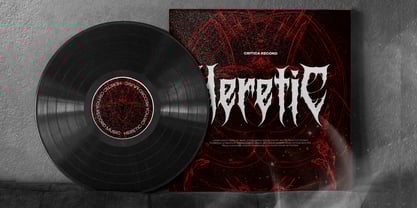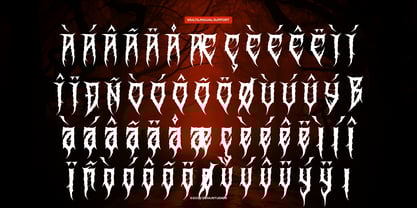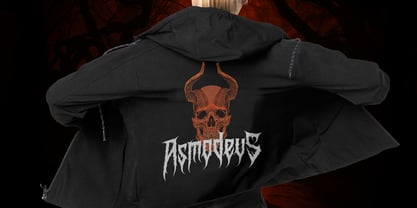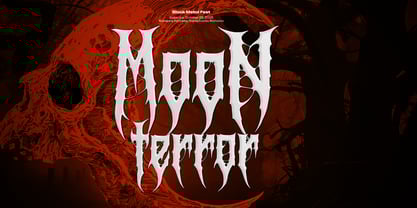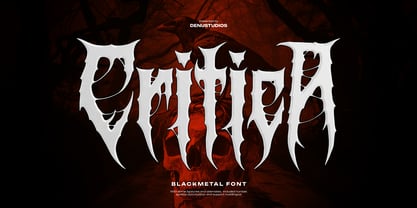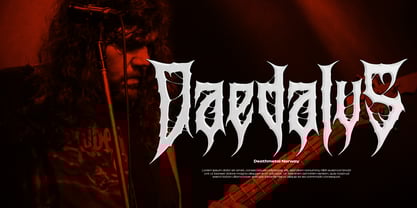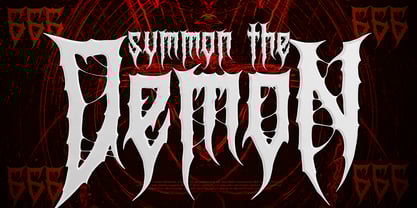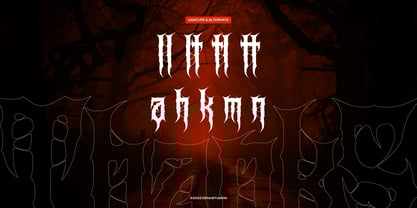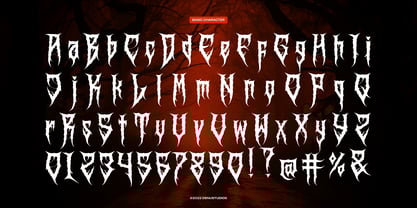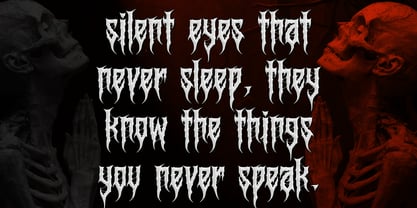
Critica
by Denustudio
The Critica Font Family was designed by Dede Nugraha and published by Denustudio. Critica contains 1 styles.
Critica | Black Metal Font, from Denustudios, suitable for any projects such as: logos, branding projects, homeware designs, product packaging, mugs, quotes, posters, shopping bags, t-shirts, book covers, name card, invitation cards, greeting cards, label, photography, watermark, special events, and all your other lovely projects that need Black Metal Font a taste.
• Regular and Italic
• Standard glyphs
• Alternate and Ligature
• Fonts include multilingual support